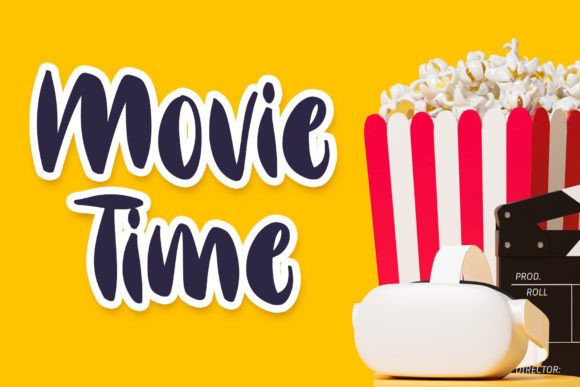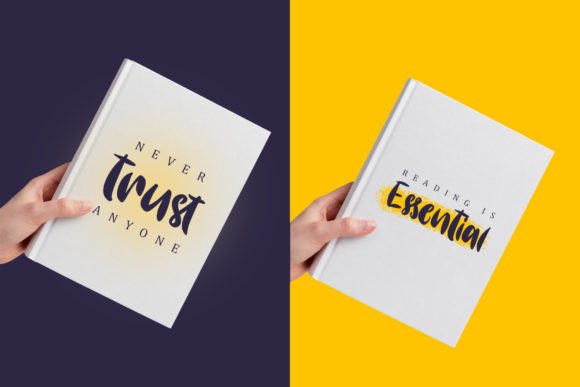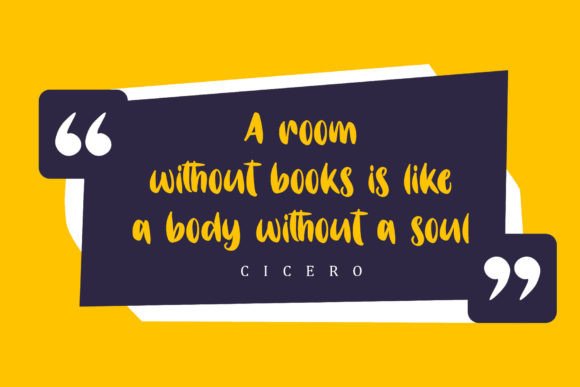
Introduction to Smile Yellow Font
As a designer, there’s nothing quite like the feeling of bringing a creative project to life. Whether it’s a children’s book, a school project, or a fun social media graphic, the right font can make all the difference. I still remember the thrill of finding that perfect font for a project – the one that makes everything pop and gives it that extra special something. For me, that font is often the Smile Yellow Font.
Smile Yellow Font is more than just a cute and colorful display font – it’s a design resource that embodies playfulness and authenticity. Its chunky letters are the perfect addition to any design, adding a touch of whimsy and personality that’s hard to resist. And the best part? It’s available for free download, making it a valuable resource for designers of all levels.
With its high quality design and transparent background, the Smile Yellow Font is a versatile tool that can be used in a variety of creative ways. From digital designs to print materials, this font is sure to make your projects shine.
Key Features of Smile Yellow Font
- Unique, Hand-Drawn Design: Smile Yellow Font is a creative project that offers a distinctive, hand-drawn style perfect for adding a personal touch to your designs.
- Transparent Background: This design resource features a transparent background, making it easy to layer over other design elements and create a seamless look.
- High Resolution: With a resolution of 300 DPI, Smile Yellow Font is perfect for use in high-end designs, such as business cards, brochures, and other marketing materials.
- Perfect for Digital and Print Designs: Whether you’re working on a digital project or a print design, Smile Yellow Font is a versatile design resource that can be used in a variety of settings.
- Easy to Use: With its clear and legible characters, Smile Yellow Font is easy to read and use, making it an excellent choice for designers of all skill levels.
Honest Review: Smile Yellow Font
I recently stumbled upon the Smile Yellow Font, and I must say it’s been a game-changer for my creative projects. The moment I downloaded it, I knew I was in for a treat. This font is perfect for anyone looking to add a touch of warmth and friendliness to their designs.
- What works well: ✨ The font’s high-quality design makes it perfect for any creative project. The transparent background allows for seamless integration into any design, and the free download is a huge bonus.
- What works well: ✨ The font’s versatility makes it suitable for a wide range of design applications, from logos to brochures.
However, there are a few limitations to consider. ⚠️ The font may not be suitable for formal or professional designs, as its playful nature may come across as unprofessional. Additionally, some users may find the font’s brightness overwhelming.
Overall, I’m thoroughly impressed with the Smile Yellow Font. Its high quality, versatility, and free download make it an excellent design resource. While it may not be suitable for every project, it’s definitely a great addition to any designer’s toolkit.
Some tips for getting the most out of the Smile Yellow Font include:
– Using it with a transparent background to create a modern and sleek design.
– Pairing it with other high-quality design resources for a cohesive look.
– Using it for headings and titles to add a pop of color to your design.
Smile Yellow Font has a transparent background, allowing for seamless integration with your design elements and providing a clean, high-quality look for your creative project. This feature is particularly useful when working with complex compositions or layered designs.